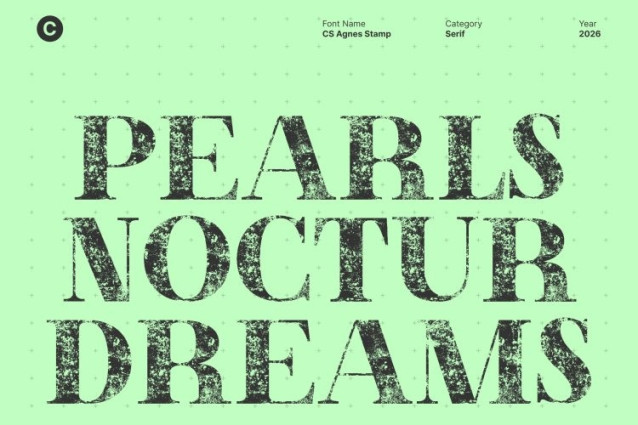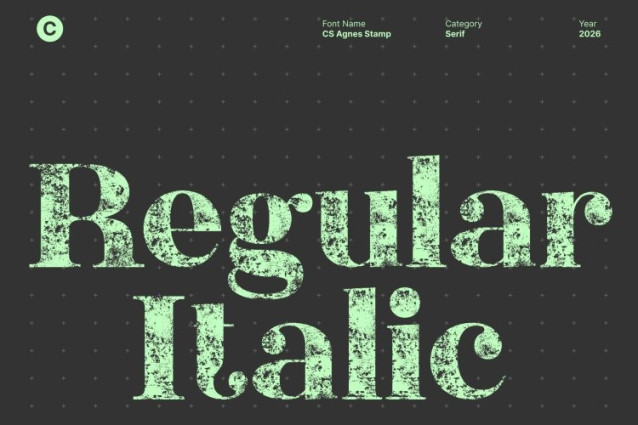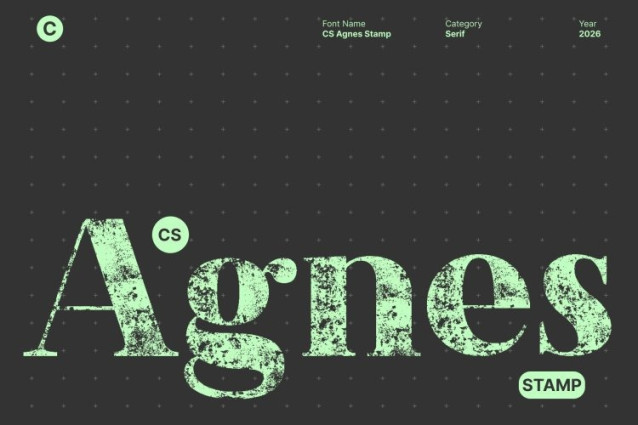
CS Agnes Stamp Font
CS Agnes Stamp Font This is a classic serif font designed to convey elegance and sophistication. Its well-proportioned letterforms and refined serifs create a polished, high-end appearance. Enhanced with a subtle stamp effect, the font gains texture and character, adding a handcrafted, vintage feel to its timeless design.
Traditional Charm with Artistic Texture
Rooted in classic serif traditions, this font introduces gentle imperfections through its stamped finish. These organic textures evoke the warmth of old printing techniques, giving each character a sense of history and artisanal quality while maintaining clarity and elegance.
Versatile Design for Modern Applications
With balanced spacing and legible forms, this font performs beautifully across a variety of mediums. Its combination of classic serif style and stamped vintage detail makes it suitable for logos, editorial layouts, packaging, invitations, and promotional materials that require sophistication with character.
Perfect for Timeless Branding and Elegant Projects
Ideal for luxury branding, books, magazines, and high-end design projects, this font elevates any layout with refined personality. Its blend of classic elegance, subtle texture, and vintage appeal ensures that designs feel both stylish and enduring, creating lasting visual impact.